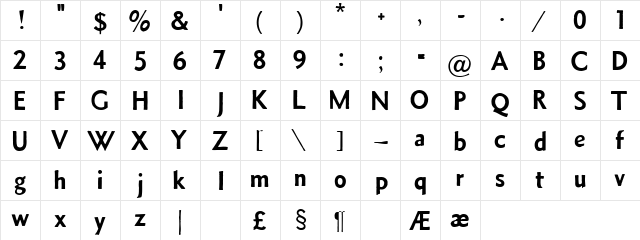
Metro Medium Alt HPLHS
Metro Medium Alt is a composed and adaptable typeface that performs quietly and consistently across a wide range of design contexts.